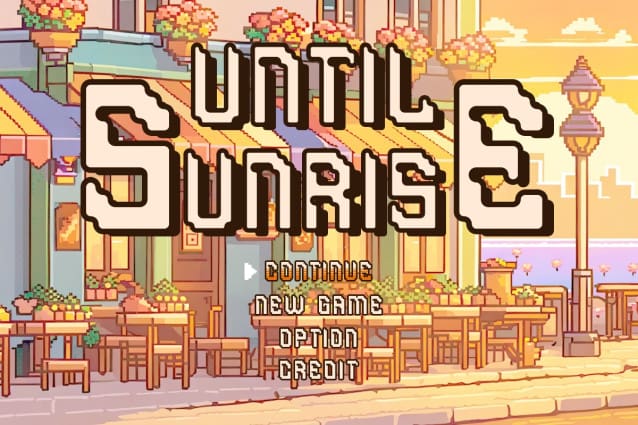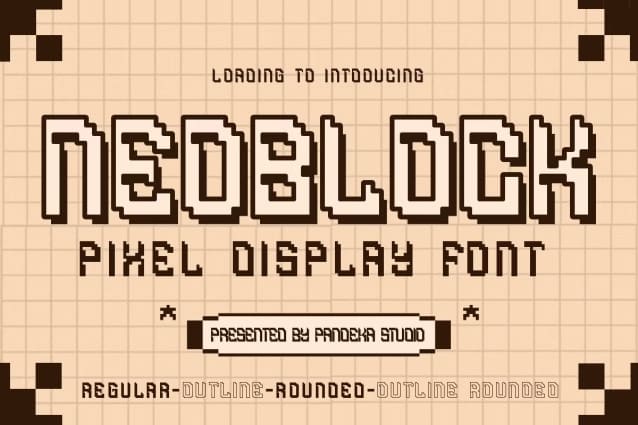
Neoblock Pixel Font
Neoblock Pixel Font is a pixel-perfect display font designed to capture the essence of retro gaming and digital aesthetics. Combining sharp, blocky shapes with modern readability, Neoblock Pixel is ideal for game design, posters, logos, and digital media projects that need a bold and nostalgic pixel style.
This font family includes 5 versatile styles: Regular, Outline, Rounded, and Outline Rounded giving you flexibility to mix and match for a wide range of creative possibilities. Whether you’re recreating the retro vibes of classic arcades or adding a touch of digital flair, Neoblock delivers style and precision in every pixel.